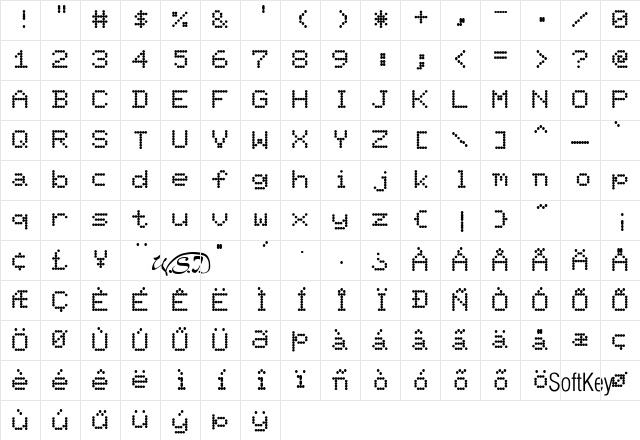
H_PIXEL Regular Free Font
H_PIXEL Regular
Complete H_PIXEL Regular glyph index. Displaying only characters natively supported by H_PIXEL Regular font.
Design Context for H_PIXEL
H_PIXEL is rooted in pixel-grid construction, making it a natural fit for game UI, retro computing aesthetics, and digital nostalgia projects.
Pro Tip: Use H_PIXEL at sizes that align with its pixel grid for the sharpest rendering - scaling to non-integer multiples can introduce unwanted blur.